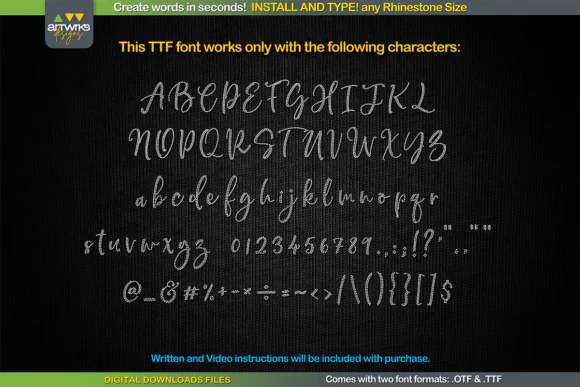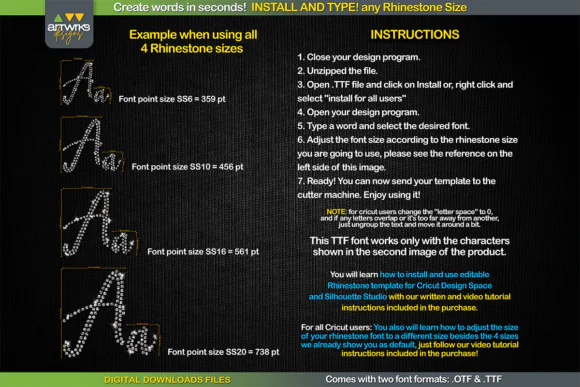
Create sparkling custom text designs in seconds with RS01 Cursiva Rhinestone Template TTF Font, a typeable rhinestone template font designed for crafters, apparel creators, Cricut users, Silhouette users, and small business owners.
This rhinestone font lets you install the font, type your word, and quickly create beautiful rhinestone-style lettering for custom designs. Each letter is arranged to work as a rhinestone template or heat transfer vinyl design, making it perfect for t-shirts, hoodies, tote bags, dancewear, cheer designs, birthday shirts, bridal party shirts, custom gifts, and bling craft projects.
RS01 Cursiva Rhinestone Template TTF Font is a practical and beautiful choice for creating sparkling custom text designs for rhinestone apparel, craft projects, and personalized products.